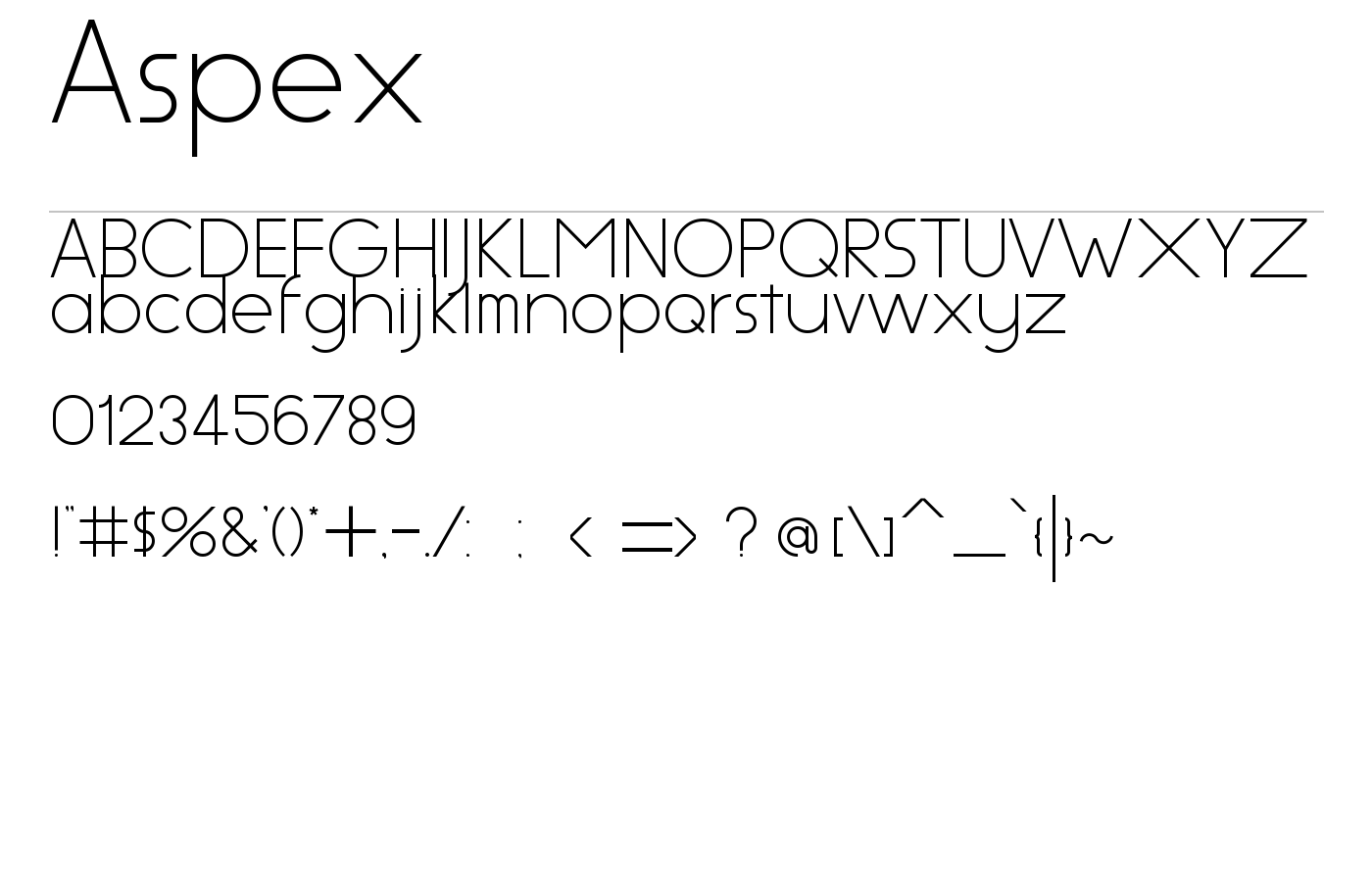
Aspex is a sleek, modern sans serif font characterized by its thin, clean lines and a tall x-height that enhances readability. Its minimalist geometric forms and consistent stroke weight give it a sophisticated and contemporary feel, making it an excellent choice for tech, fashion, and editorial design projects that require a refined yet approachable look. This font works especially well in headlines and branding where clarity and elegance are key.
Aspex Font